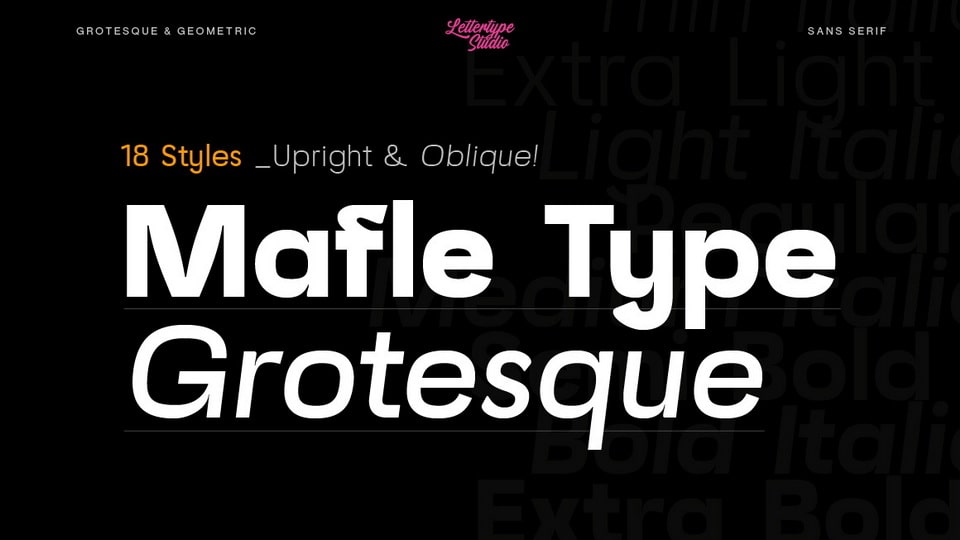
Download Mafle Type Grotesque, a sans serif typeface that seamlessly blends geometric shapes’ clean, modern elegance with the timeless appeal of Grotesque design principles.
Designer: Lettertype Studio